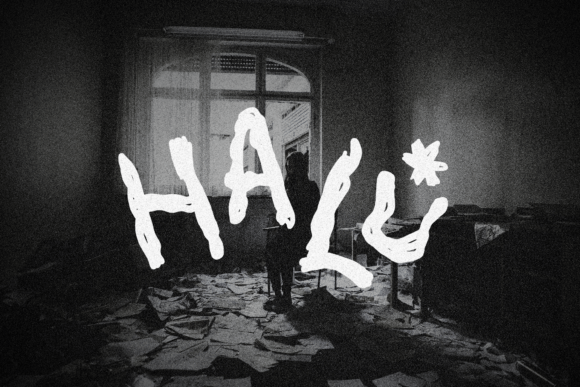
Journey through the thrilling realm of Halloween with the captivating Halu font, a captivating display font that breathes life into your creative endeavors. The masterful strokes of this font ignite a sense of intrigue and excitement, captivating your audience and leaving a lasting impression. Immerse yourself in the world of Halu and let your imagination run wild!
Halu beckons you to explore the spooky, the mysterious, and the downright terrifying. Its distinctive glyphs, reminiscent of twisted vines and gnarled branches, evoke a sense of eerie elegance that's perfect for creating posters, invitations, and social media posts that scream Halloween. Whether you're a seasoned designer or a creative enthusiast, Halu is the perfect tool to bring your haunting visions to life.
With Halu, you'll have the power to transform ordinary words into spine-chilling expressions. Its versatile nature allows you to craft designs that ooze atmosphere and intrigue, leaving your audience spellbound. Whether you're conjuring up a haunted house flyer or designing eye-catching social media graphics, Halu has the versatility to match your every creative whim.
Unleash the power of Halu today and let the spooky season come alive. Experience the thrill of creating designs that resonate with the spirit of Halloween. Let Halu be your guide through the realm of darkness and delight, where imagination knows no bounds. Dive into the world of Halu now and unleash your creativity like never before!